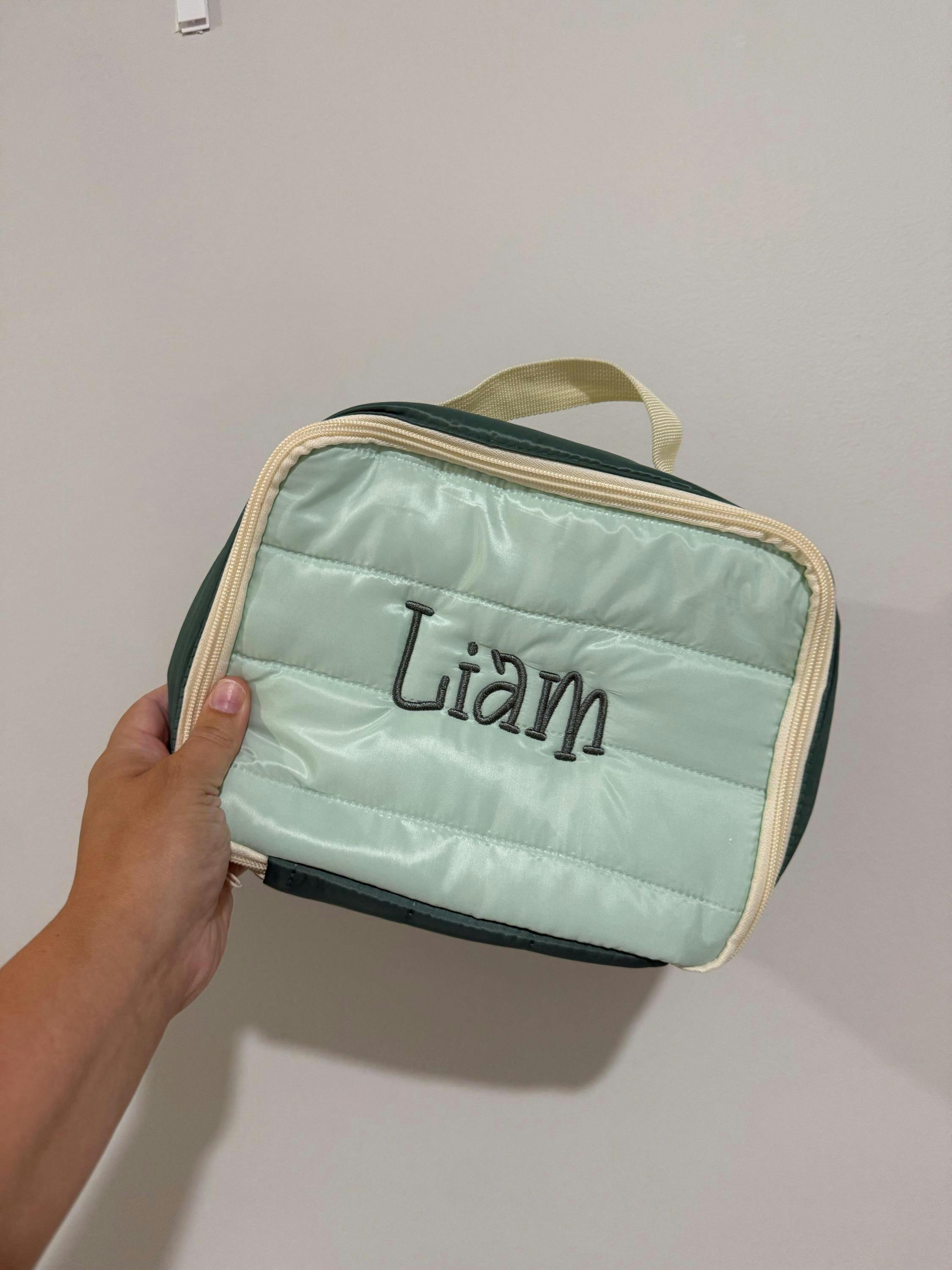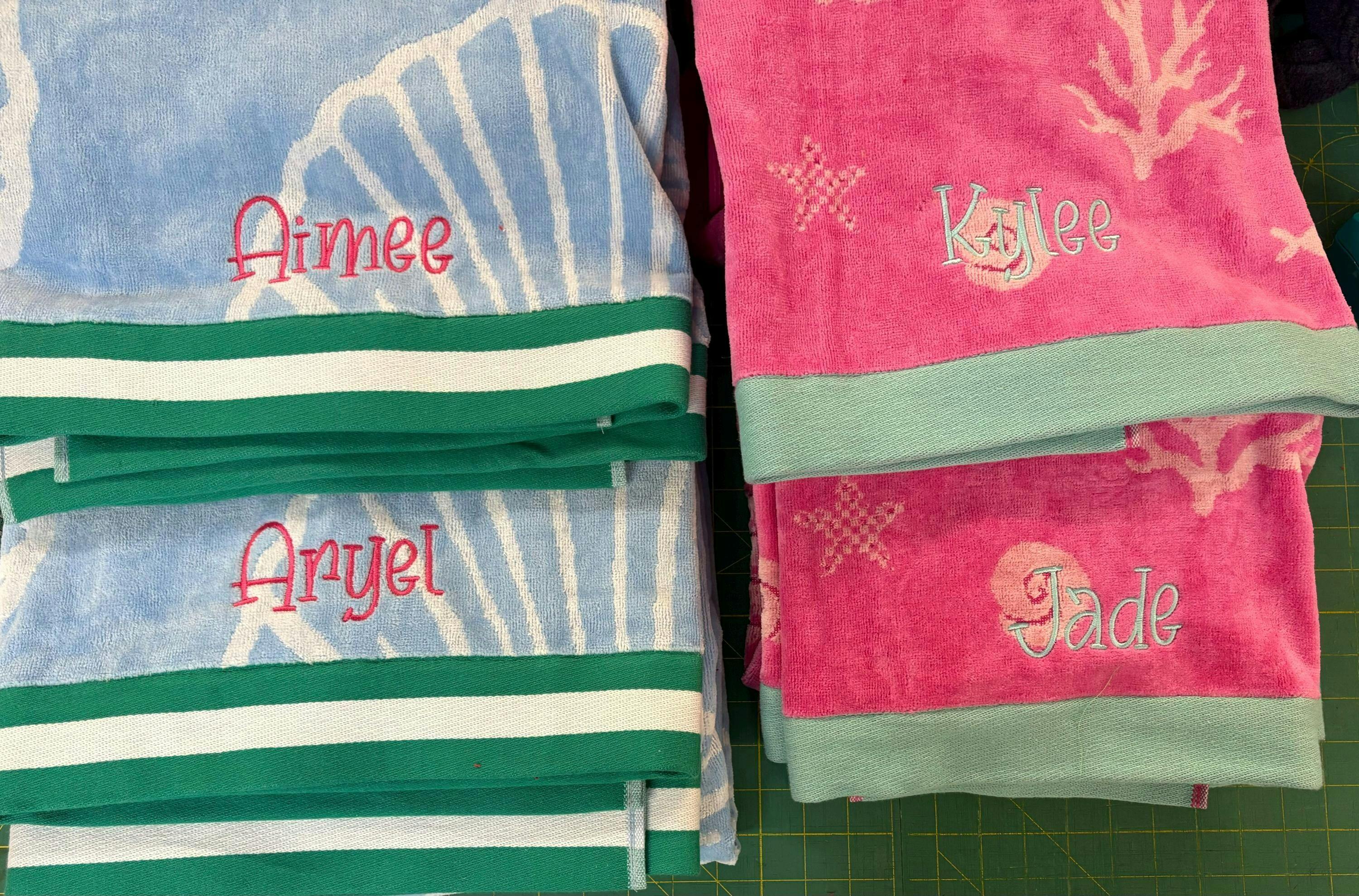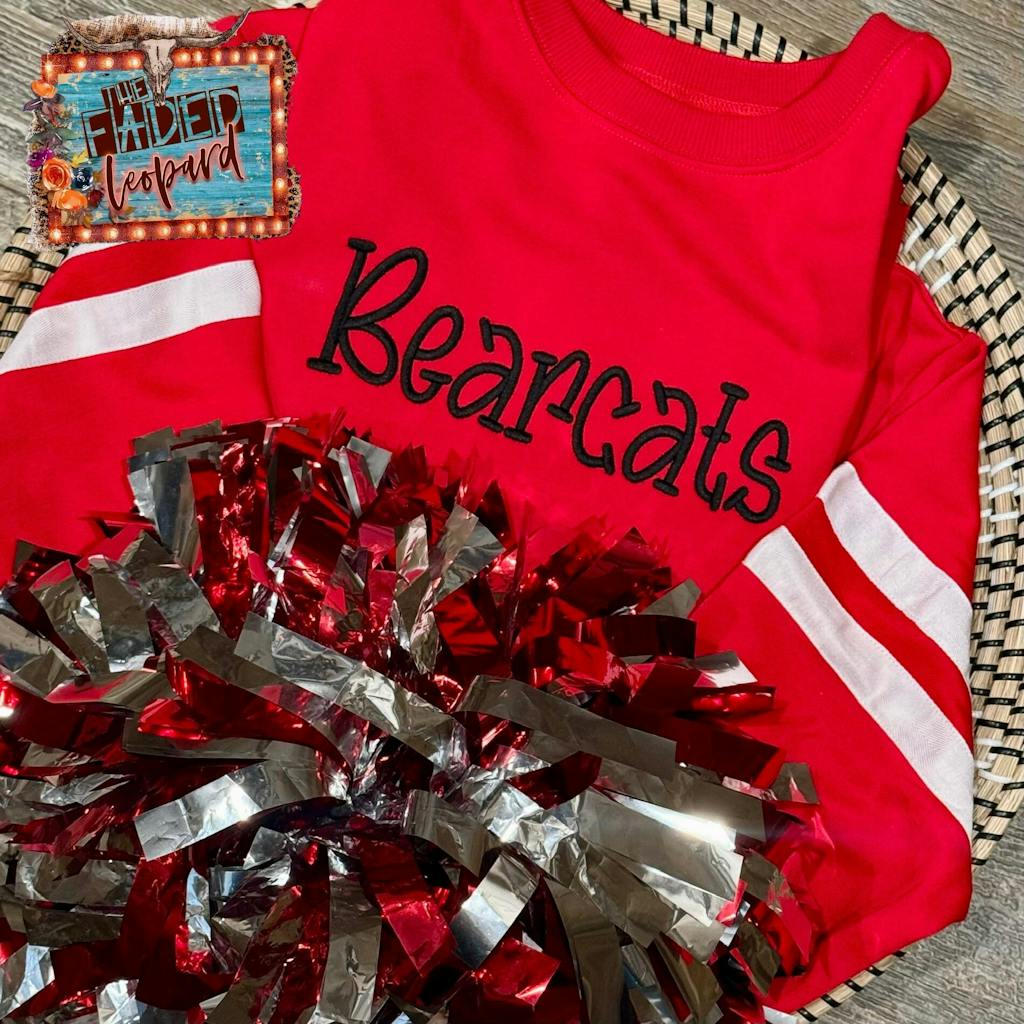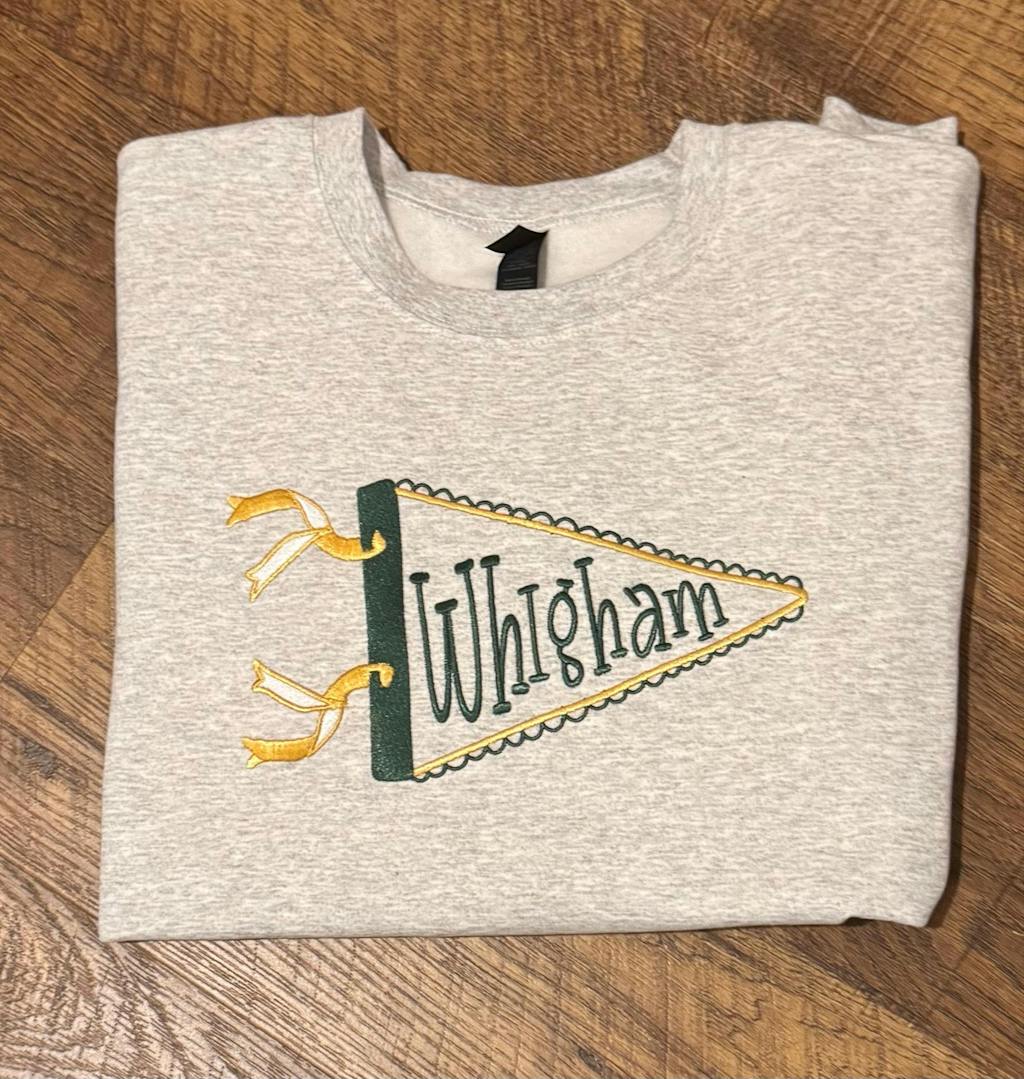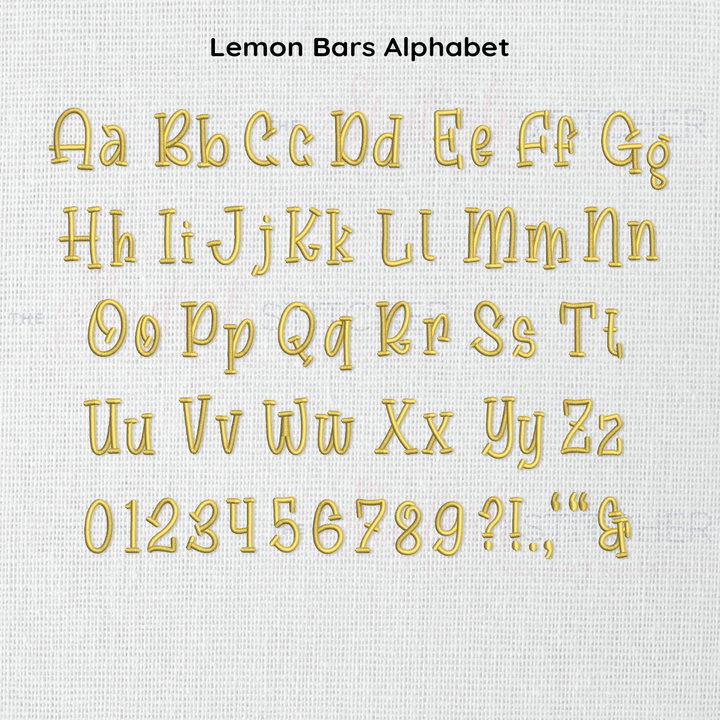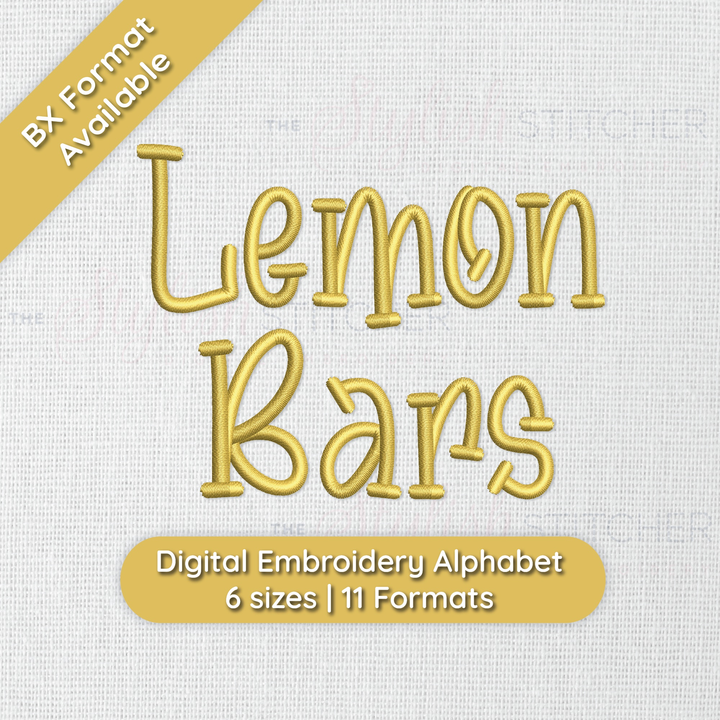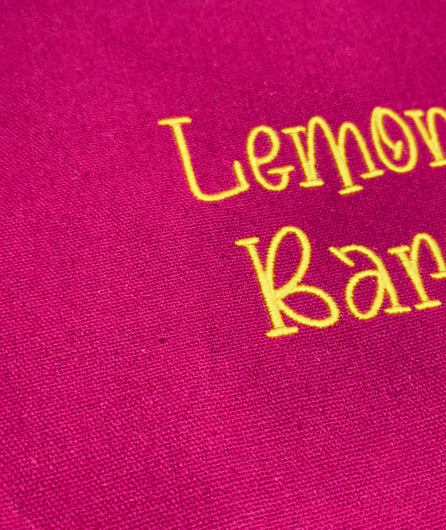
Photograph of stitched out Lemon Bars embroidery font
Video showcasing stitched out Lemon Bars font
Photograph of stitched out Lemon Bars embroidery font alphabet
Lemon Bars Embroidery Font
Lemon Bars Embroidery Font is a bold, looping serif font with thick satin stitches that create a lively and dynamic look. Its rounded edges and unique letterforms make it perfect for designs that need an eye-catching and energetic feel.